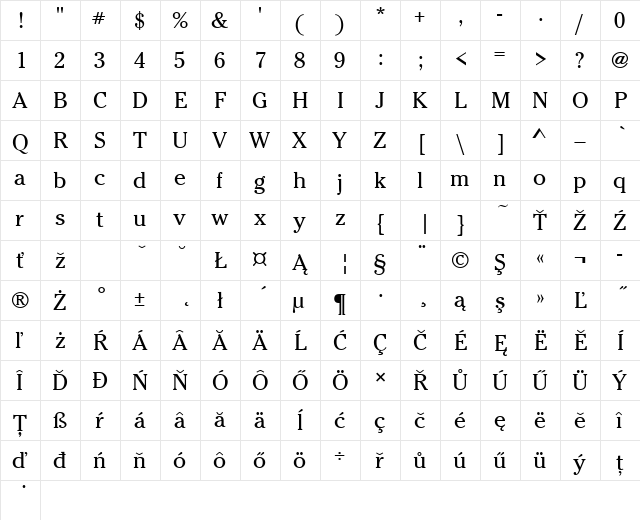
CheltenhamItcTEE Regular
Design Context for CheltenhamItcTEE Typeface
CheltenhamItcTEE offers clean, dependable letterforms without strong stylistic allegiance, making it a practical choice for designers who need flexibility.
Pro Tip: Use CheltenhamItcTEE in both headline and body roles to test its range before committing to a single application.